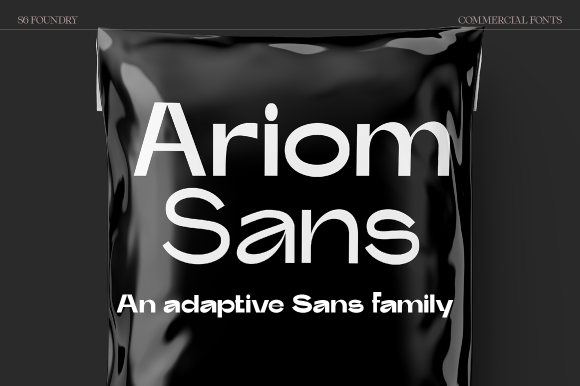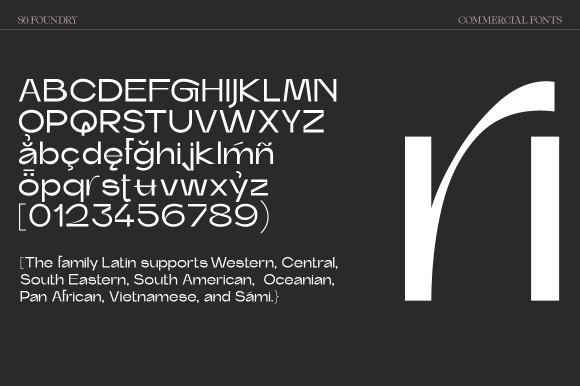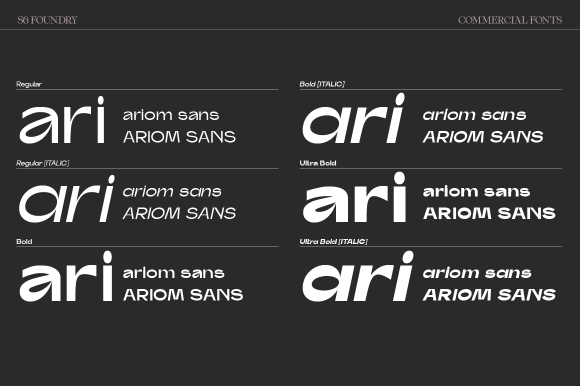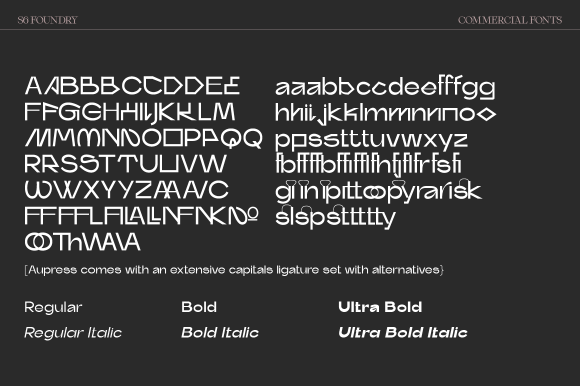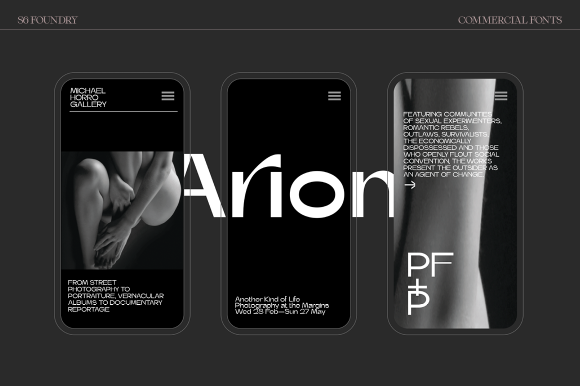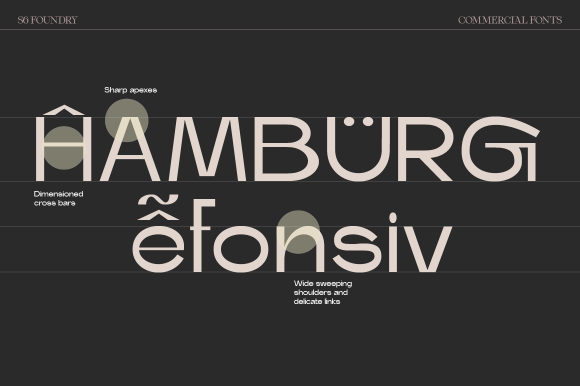
A Fresh Perspective: Discovering the Power of Ariom Font
Have you ever found yourself staring at a blank page, struggling to bring your creative vision to life? For many designers, this is a familiar feeling. But what if you had the perfect tool to unlock your imagination and bring your ideas to the forefront?
Enter the Ariom Font, a sleek and modern sans-serif font that’s perfect for any creative project. Whether you’re crafting a custom design, working on a digital project, or simply need a stylish font for a presentation or greeting card, Ariom Font is the perfect choice. Its clean lines and geometric shape make it versatile and easy to use, allowing you to focus on what matters most – bringing your ideas to life.
Ariom Font Key Features
- Unique Characteristics: The font features a unique blend of modern and minimalist design elements, with clean lines, geometric shapes, and subtle texture, making it perfect for contemporary designs.
Ariom Font Review
I’ve had the chance to work with the Ariom font, and I must say it’s an interesting combination of modern and elegant features. ✨ One of the things that works well is its versatility. It comes in multiple weights and styles, making it suitable for a wide range of design projects, from titles and headings to body text.
- ✨ Easy to read in various sizes, making it ideal for digital applications.
- ✨ Supports a wide range of languages, which is a huge plus for global projects.
- ✨ Has a clean and minimalist design, perfect for modern branding and design aesthetics.
However, there are some limitations that I’ve noticed. ⚠️ For one, the font may feel a bit generic to some users, which could impact its ability to convey a unique brand identity. Additionally, the font’s x-height could be improved for better legibility in smaller sizes.
- ⚠️ May feel too generic for some users.
- ⚠️ Could benefit from improved x-height for better legibility in smaller sizes.
Overall, the Ariom font is a solid choice for designers looking for a modern and elegant font. While it may not be perfect, it’s definitely worth considering for a wide range of projects. With some careful selection and styling, the Ariom font can add a touch of sophistication to any design.
Tips for Getting the Most Out of Ariom Font
For optimal results, use Ariom Font in combination with bold or italic styles to add emphasis to your text.
Additionally, experiment with different font sizes to create visual hierarchy in your design.
Ariom Font is suitable for a variety of applications, including:
1. Corporate branding and identity
2. Digital product design
3. Editorial and publishing content
4. Social media graphics and advertising.